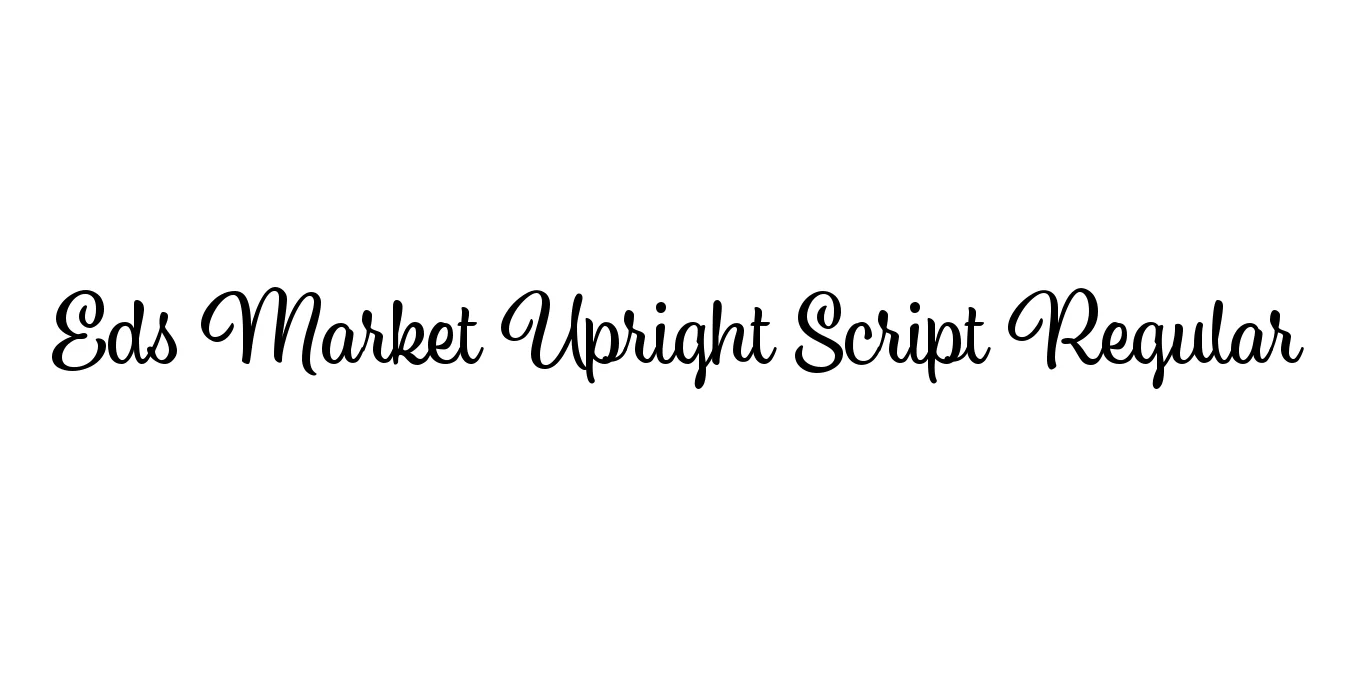
Eds Market Upright Script Regular
Designed by Laura Worthington
Eds Market Upright Script Regular is a charming, hand-lettered font designed by Laura Worthington. Inspired by the classic, hand-painted signage of mid-century grocery stores and roadside markets, this typeface captures a sense of nostalgia and Americana. The upright posture of the script gives it a more structured and legible feel than traditional slanted scripts, while still maintaining the warmth and approachability of brush lettering.
As part of the larger Eds Market collection, this typeface is engineered to work seamlessly with its companion styles, such as block and slab serif variations. Its design features smooth connections and balanced weights, making it versatile for both digital and print media. Whether used for branding or editorial design, it evokes a handcrafted quality that suggests authenticity and artisan craftsmanship.
Eds Market Upright Script Regular Best Uses
Ideal for logos and packaging that need a nostalgic, handcrafted feel.
Perfect for artisanal cafes and restaurants looking for a retro grocery store aesthetic.
Excellent for personal messages and stationery that require a warm, human touch.
Works well for storefront signs and display boards that need high legibility.